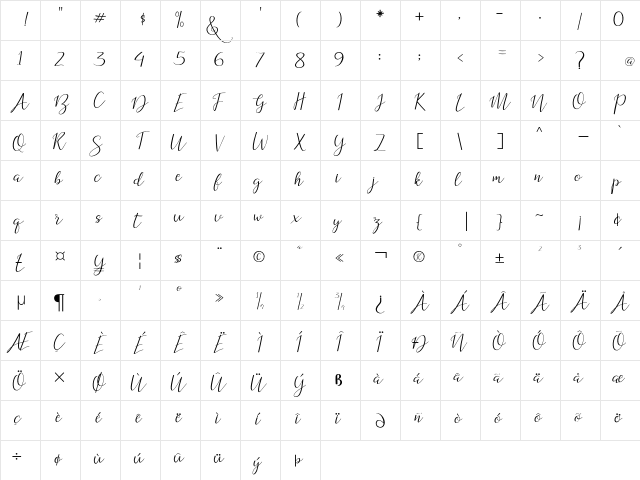
Dogma Script Regular
| Designer | mrletters_Muhammad Rizal |
Design Context for Dogma Script Typeface
Dogma Script brings a calligraphic fluidity to the page — its connecting strokes and expressive curves give it an unmistakably human quality.
Font Pairing: Combine Dogma Script with a simple geometric sans for maximum contrast — the tension between flowing curves and clean structure is a classic typographic pairing.
Pro Tip: Pair Dogma Script with a clean sans-serif for supporting text. The contrast between fluid script and geometric structure creates an elegant typographic hierarchy.